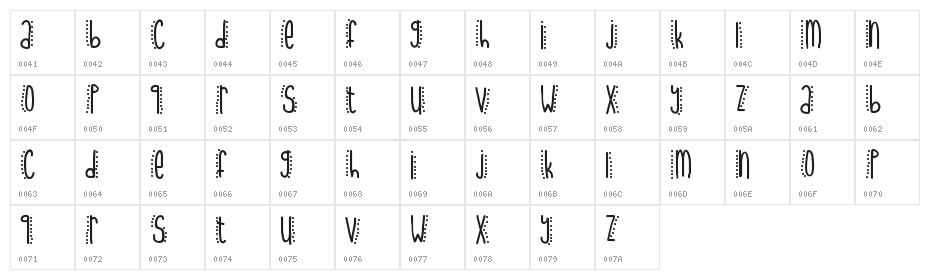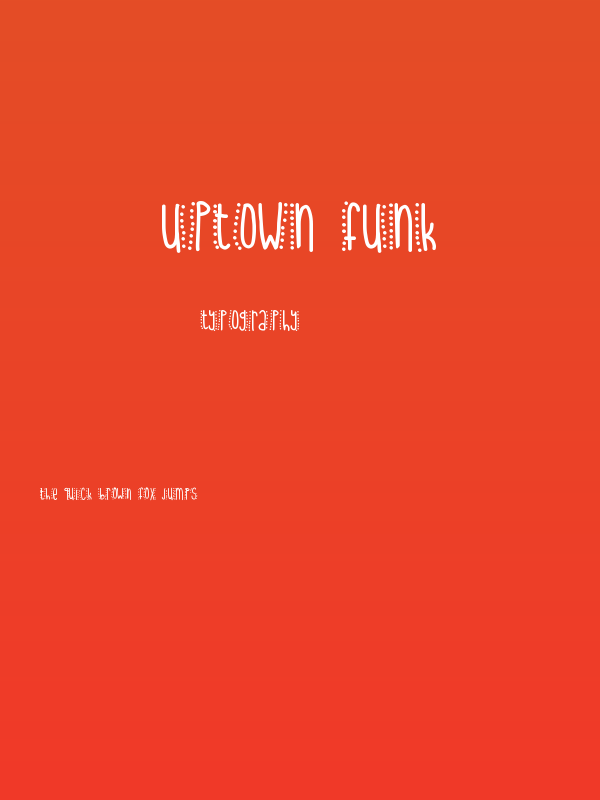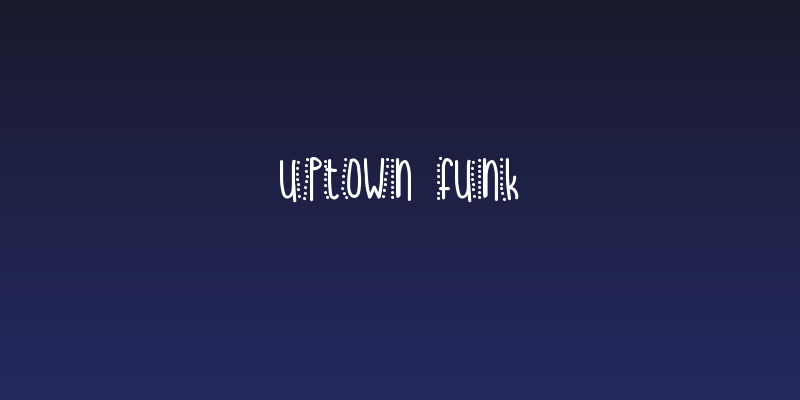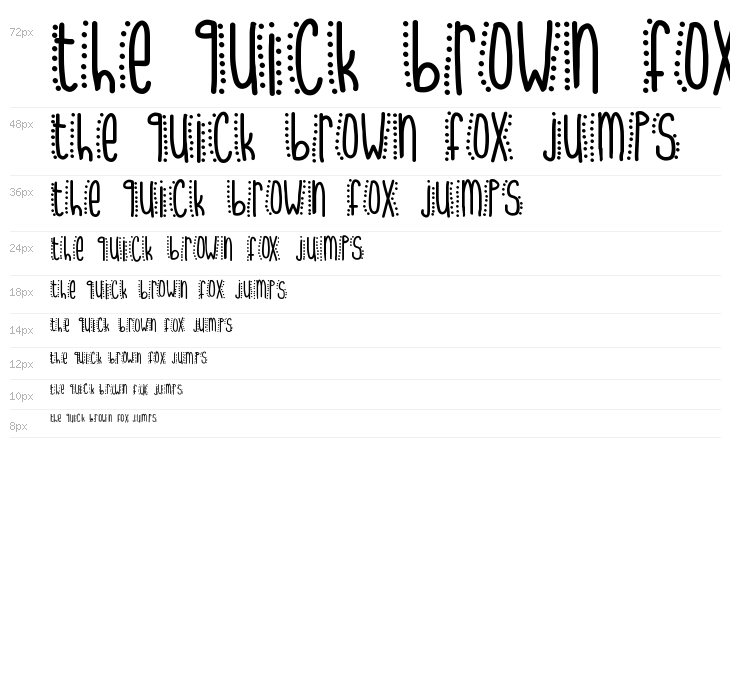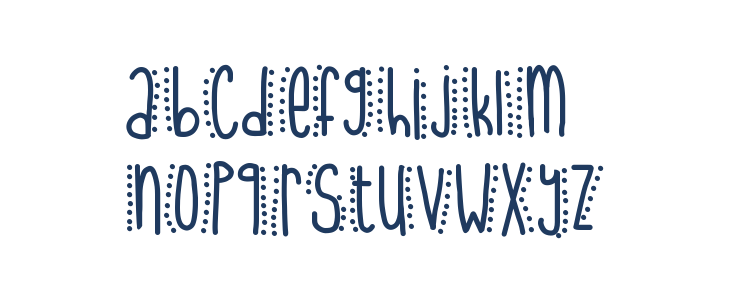
uptown funk Font
uptown funk Description
This playful and whimsical font features a unique dotted pattern that accompanies each character, adding a lively and dynamic feel. The letters are tall and narrow, with a slight curve that gives them a friendly and approachable appearance. The uppercase and lowercase letters maintain a consistent style, with rounded edges and a uniform stroke width. The font's distinct personality makes it stand out, making it ideal for creative and fun projects. The absence of serifs and the consistent line thickness contribute to its modern and clean look, while the dotted embellishments add a touch of charm and creativity.
Overall StyleWhimsical
Proposed ProjectsIdeal for children's books, playful branding, party invitations, and creative posters.